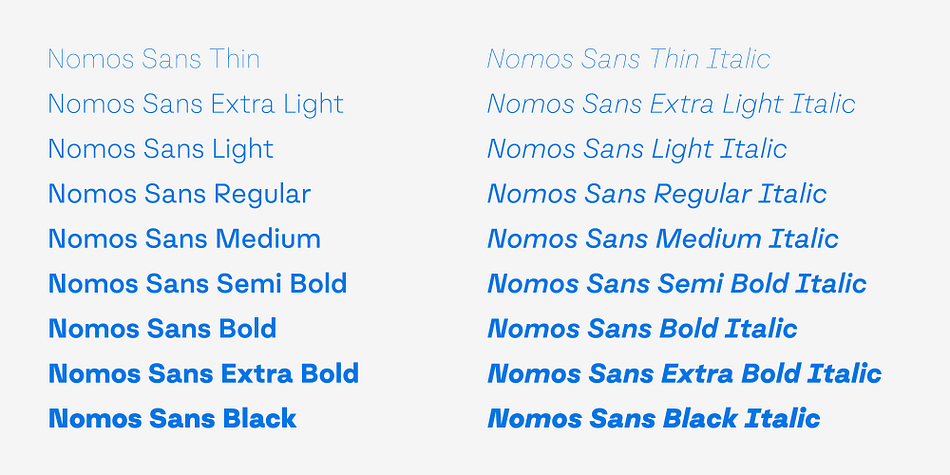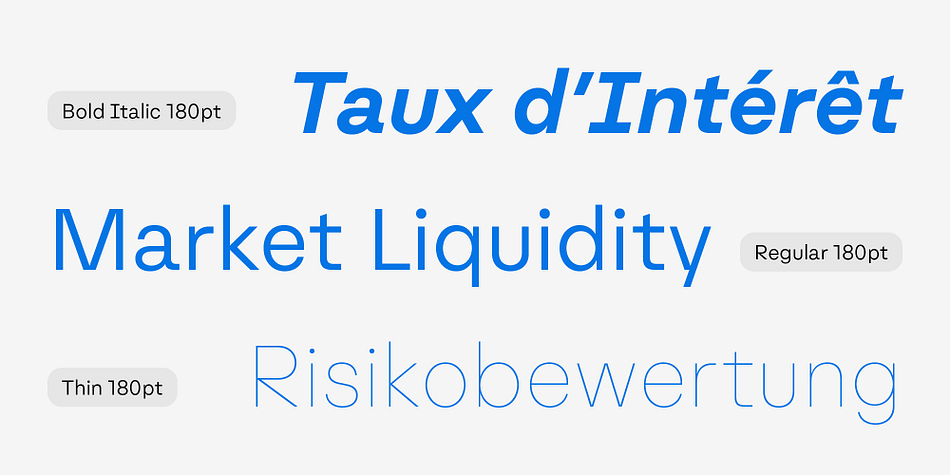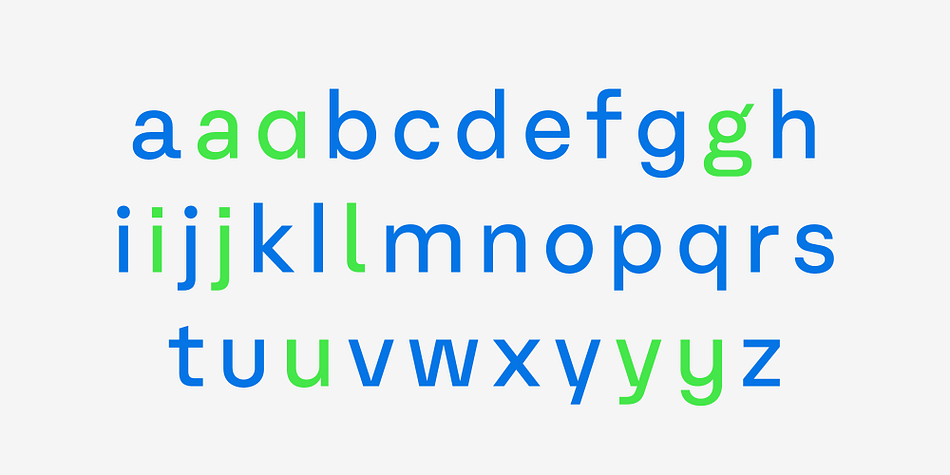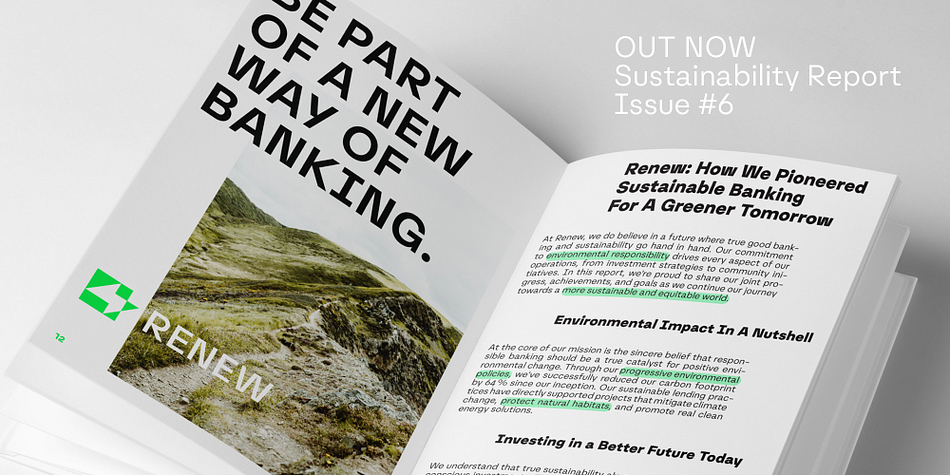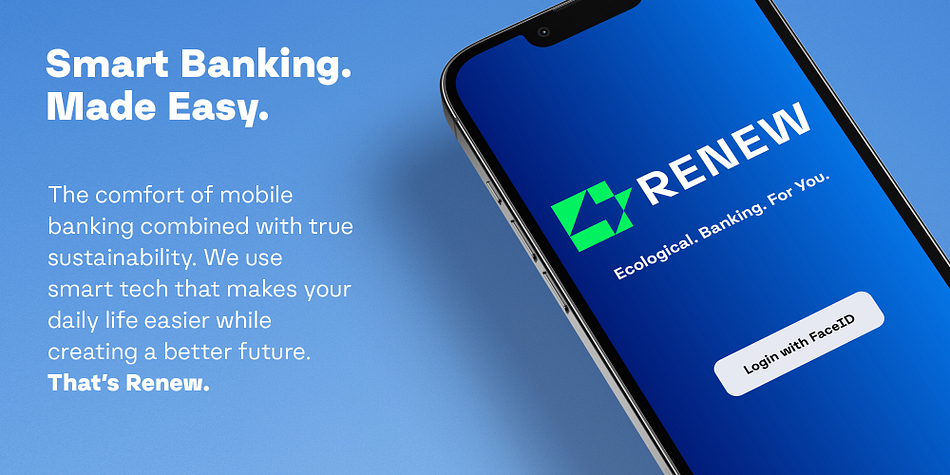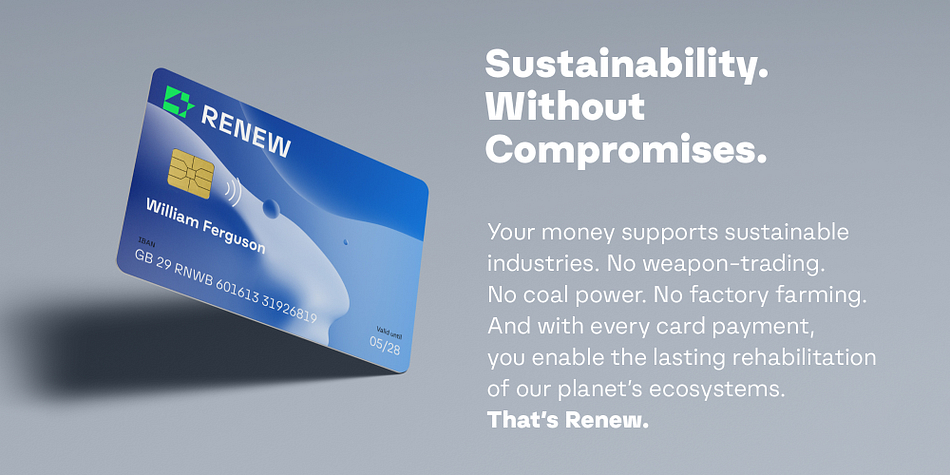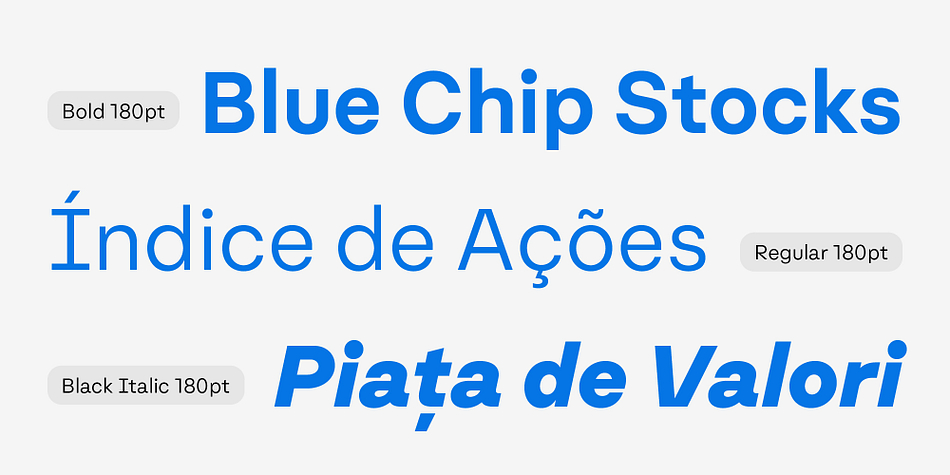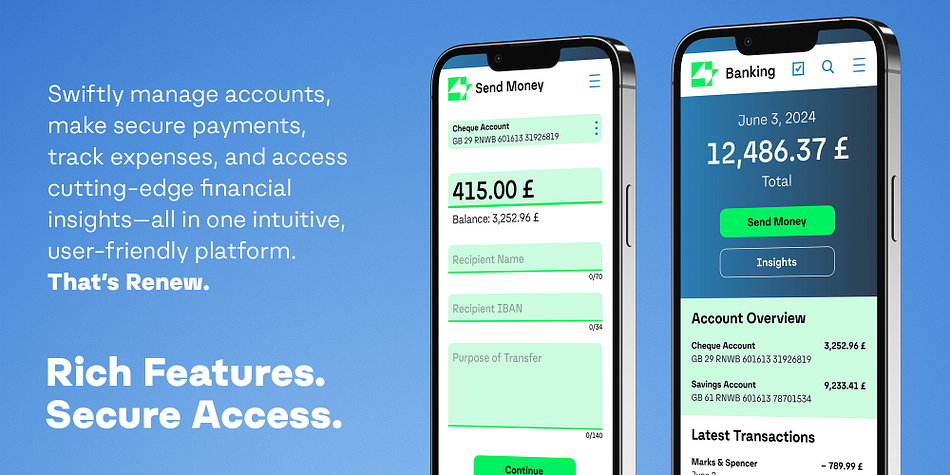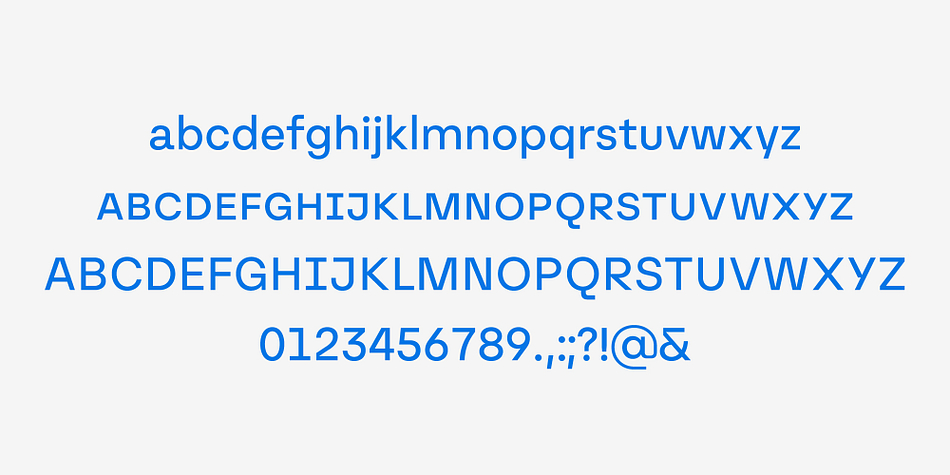
Nomos Sans
Designed by Moritz Kleinsorge, Nomos Sans is a sans serif font family. This typeface has eighteen styles and was published by Identity Letters.
What is a brutalist typeface? The exact definition is anyone’s guess. Regardless, the Nomos superfamily is our take on the genre. Like the eponymous architectural style, Nomos is raw, direct, and honest. Its unrefined aesthetics reveal an orderly construction that is as firmly rooted in classic modernism as in the internet age—with simple, functional letterforms and the blunt convergence of diagonal and vertical stems. The Nomos Sans subfamily is a low-contrast neogrotesk with 18 styles and a set of 1000+ characters. A confident choice for fashion and finance, for apps and advertising: humble and expedient in body text, vigorous in display sizes. Has extra poise when paired with Nomos Slab.